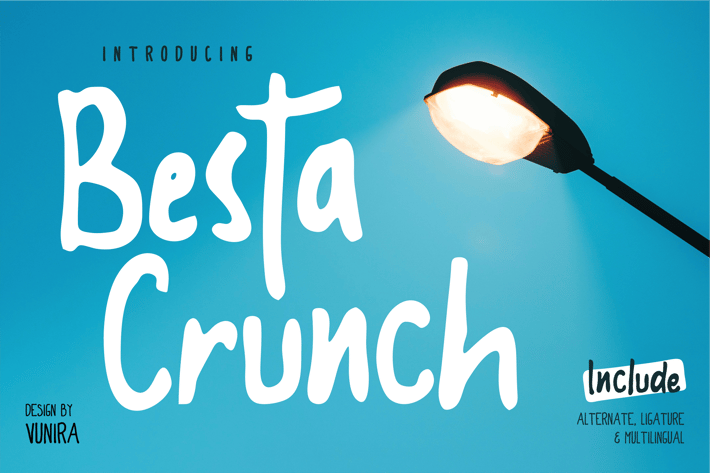
Besta Crunch | Decorative Font
Besta Crunch | Decorative Font with a calligraphy style, So beautiful on invitation like greeting cards, branding materials, business cards, quotes, posters, and more!